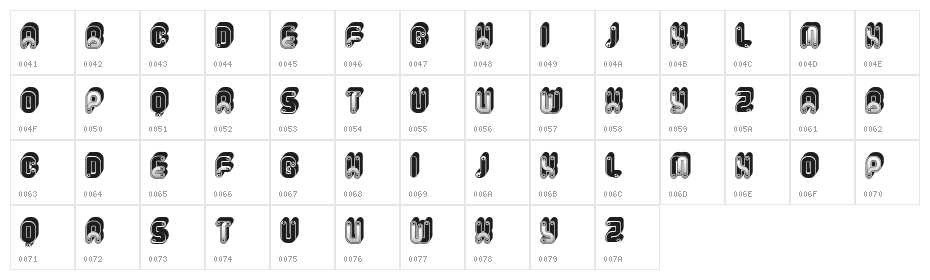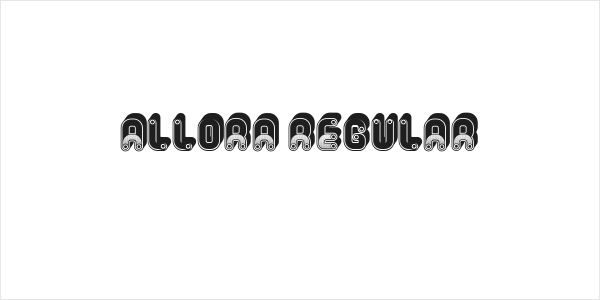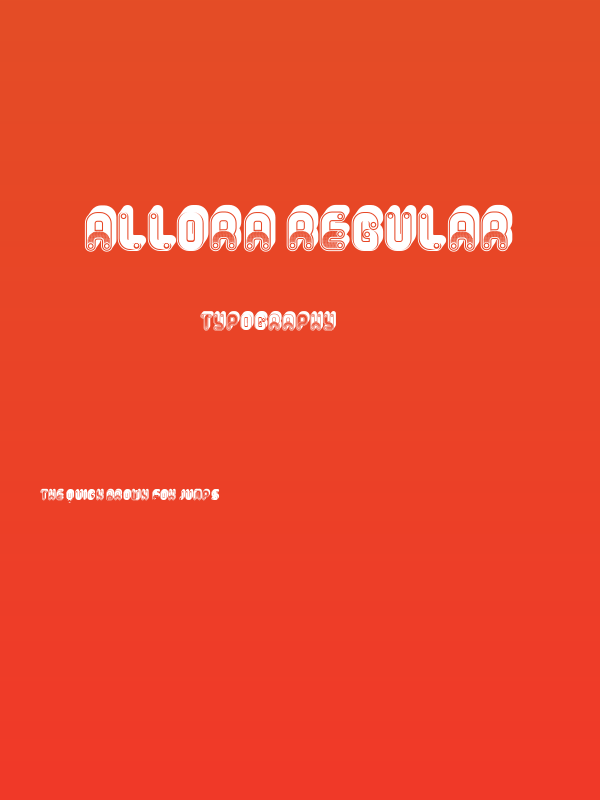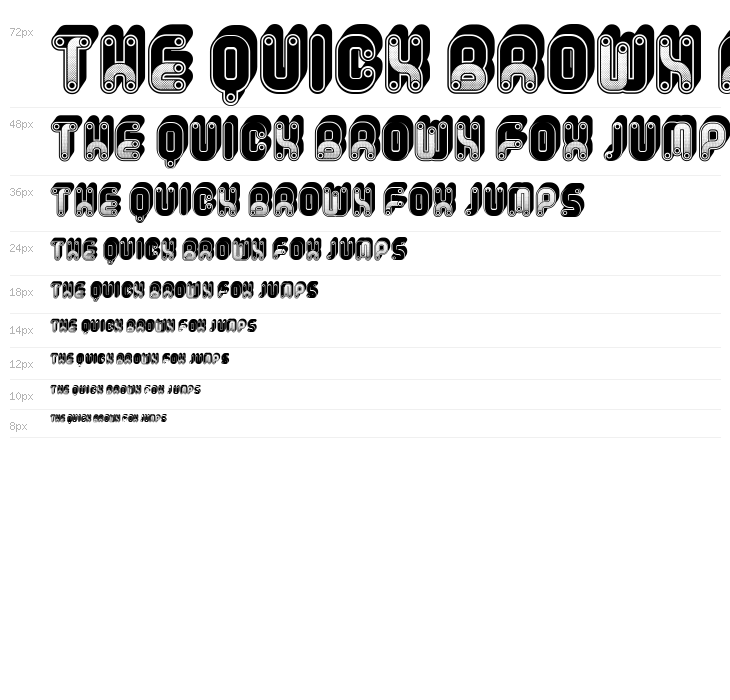
Allora Regular Font
Allora Regular Description
This font features a bold, decorative style with a unique layered design. Each character is crafted with a combination of solid black outlines and intricate inner patterns, creating a striking visual effect. The letters are uppercase, with a consistent height and width, giving a uniform appearance. The design incorporates circular and linear elements, adding a sense of movement and depth. This font is ideal for eye-catching headlines and creative projects that require a bold statement. The intricate details and bold outlines make it stand out, perfect for use in posters, branding, and artistic designs.
| Proposed Projects | Ideal for posters, branding, artistic designs, and eye-catching headlines. |